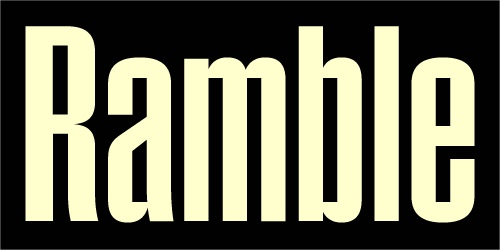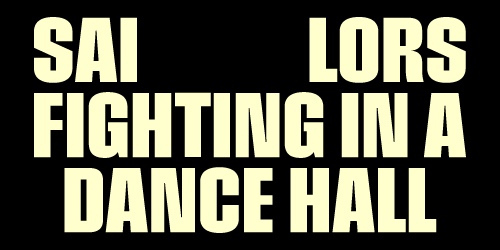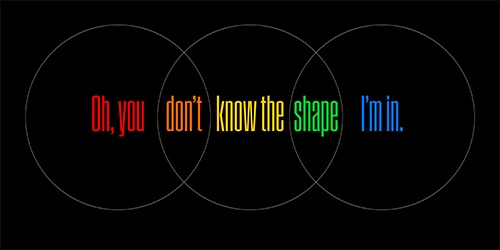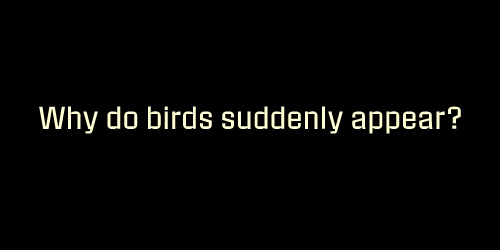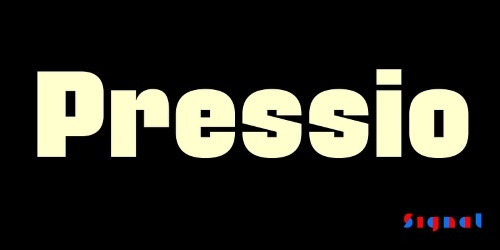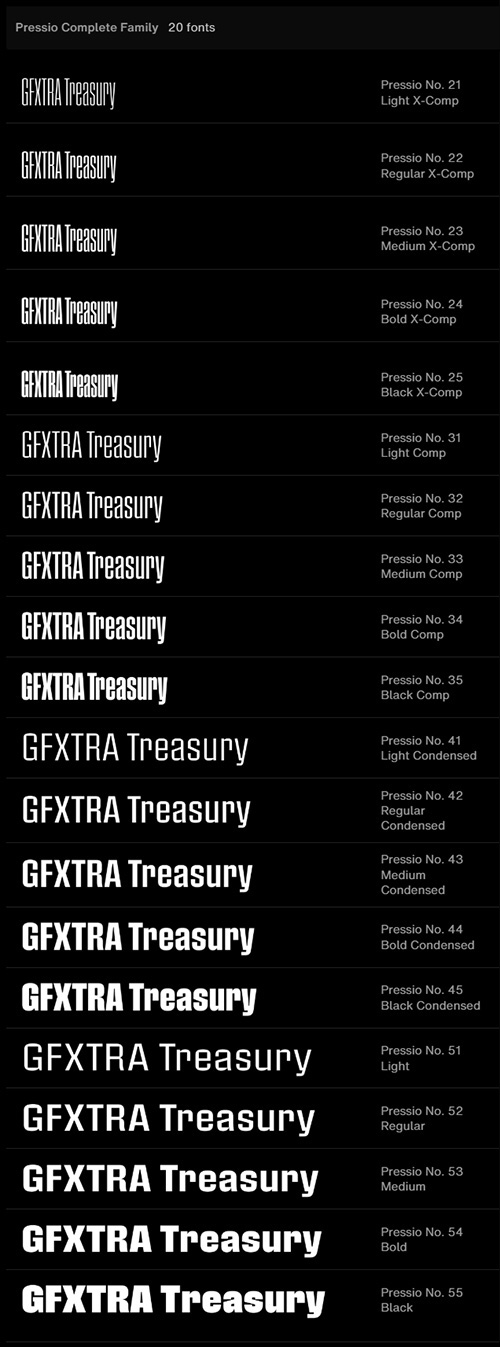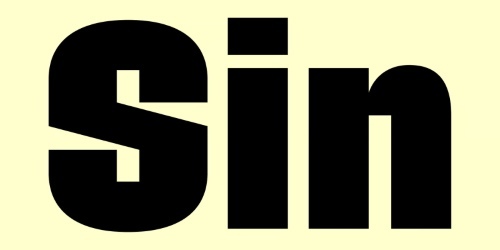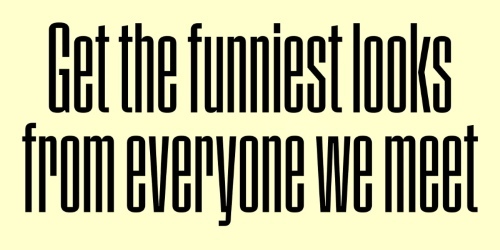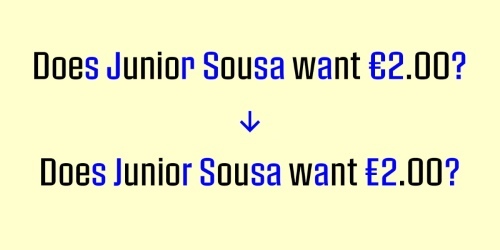
Pressio Solid Range - 20 Styles
+ Variable Font Family
- Pressio is a study in doing things backwards. We began with the weight that’s usually drawn last: the ultra-compressed black. This was squashed down vertically in increments to make the compressed, condensed, and regular widths, then hollowed like a dugout canoe to produce the lighter weights. The narrower bold cuts are inspired by the great mid-century skyline sanses. The widest cuts are stark, idiosyncratic, and intense. In between, 20 styles in five weights and four widths provide a broad range of expression. Forms are strict and modular. X-height is high. Curves are subtly superelliptical, and square counters add crispness. For those who prefer it, a set of stylistic alternates is available to round some of the unexpectedly sharp corners of letters like S, s, and a. Case-sensitive punctuation and delimiters are included, and a full range of diacritics provides support for over 130 languages. And it goes well with its sister family,